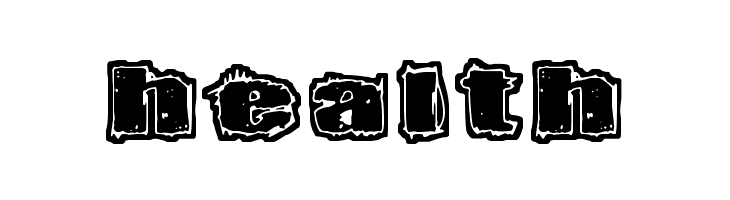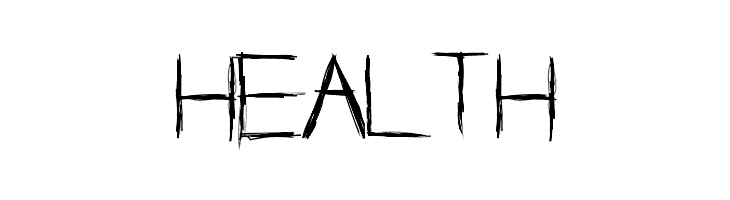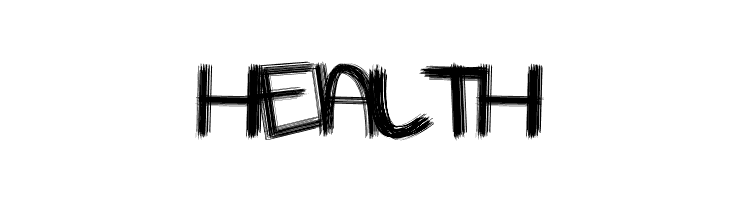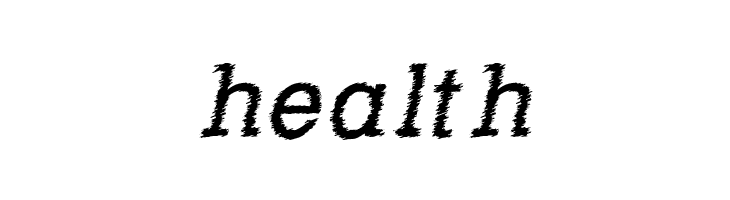
A raw, edgy, hand-drawn font with a jagged, distressed style.
A bold, textured font with a hand-drawn, scribble-like appearance.
A textured, sketch-like font with playful and artistic characteristics.
A rugged, hand-drawn font with sharp, angular lines and a distressed look.
A sketch-like, hand-drawn decorative font with an artistic and textured appearance.
A bold, scratchy, hand-drawn font with a dynamic and textured appearance.
A bold, italicized font with a textured, typewriter-like appearance.
A fragmented, textured font with a dynamic and edgy appearance.
A distressed, hand-drawn font with chaotic, overlapping strokes for a grunge aesthetic.